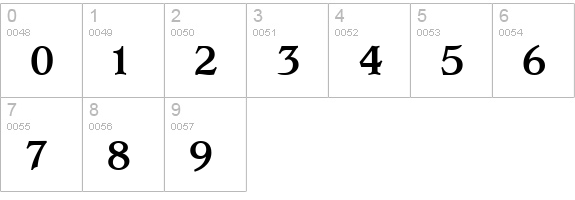
Usherwood Bold is a strong, high-contrast variant in the Usherwood typeface family \xE2\x80\x94 well suited to headlines, attention-grabbing titles, and strong calls-to-action.
Usherwood Bold is a captivating and versatile font that commands attention with its bold and strong presence. This font exudes confidence and elegance, making it the perfect choice for designs that require a touch of sophistication. Usherwood Bold is designed with precision and intricacy, ensuring every character is beautifully crafted. With its clean lines and well-defined curves, Usherwood Bold offers exceptional legibility even at smaller sizes. Whether used for headlines, logos, posters, or any other creative project, this font is sure to make a lasting impression. One of the most remarkable aspects of Usherwood Bold is that it is freely available to download at FontsMarket.com. This means that you can easily access and utilize this remarkable font without any cost. FontsMarket.com provides a user-friendly platform where you can effortlessly browse and download a wide range of high-quality fonts, including Usherwood Bold. So, if you are in need of a powerful and eye-catching font that adds a touch of sophistication to your designs, look no further than Usherwood Bold. With its stunning aesthetics and the convenience of being freely available to download at FontsMarket.com, this font is truly a remarkable choice for any creative project.